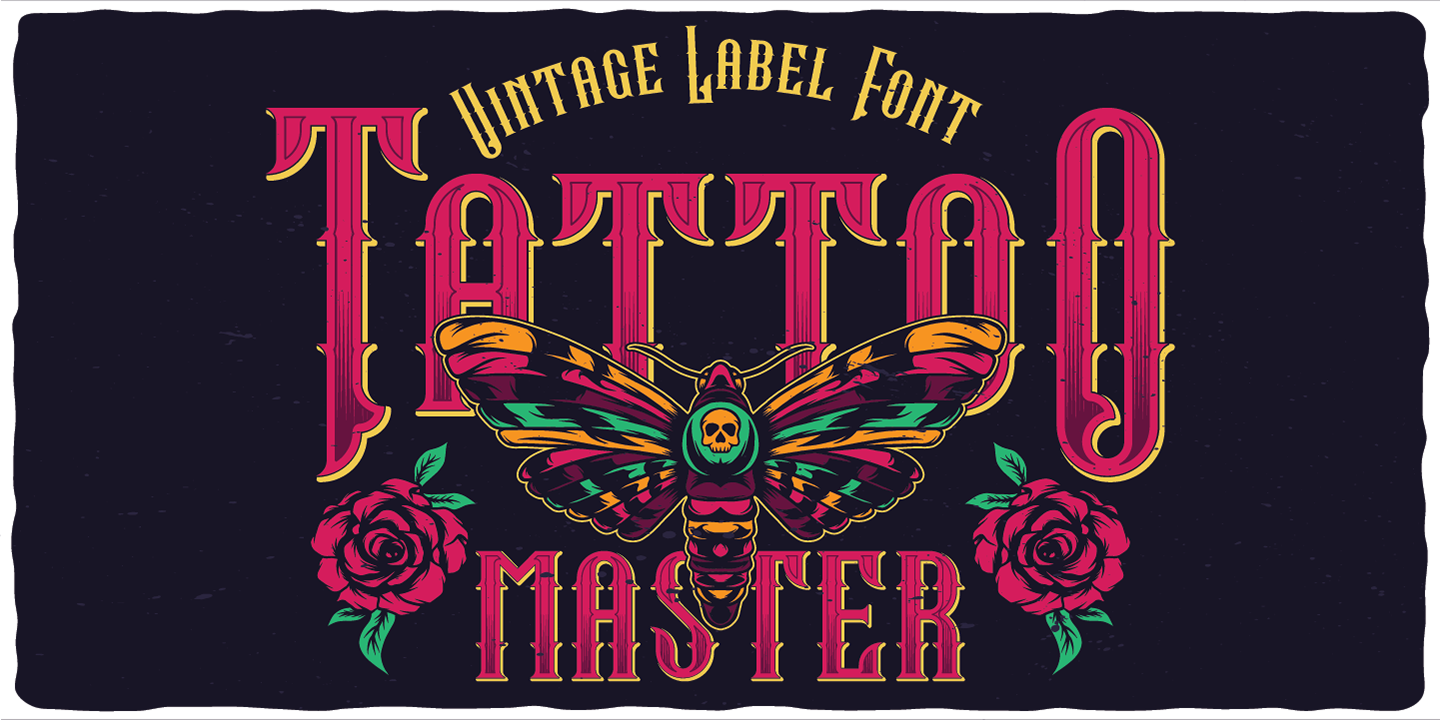
Tattoo Master Font is perfect for tattoo parlor branding, alternative lifestyle marketing, rock band merchandise, motorcycle shop signage, rebel fashion campaigns, edgy bar and club identities, underground music promotions, custom art studios, biker culture materials, and authentic street culture designs. This bold typeface excels in environments where artistic rebellion and authentic underground character are essential for connecting with alternative communities.
What makes Tattoo Master Font exciting is its authentic recreation of traditional tattoo lettering that captures the raw artistic energy and rebellious spirit of ink culture. The font features bold, hand-drawn characteristics with decorative flourishes that mirror the craftsmanship and personal expression found in professional tattoo artistry. This authentic aesthetic makes it ideal for brands seeking to communicate individuality, artistic freedom, and genuine connection to alternative culture and body art traditions.
Tattoo Master Font family includes Regular, Bold, Outline, Shadow, Decorative, Ornamental, Script, and Distressed variants. Each style maintains the font's distinctive tattoo character while offering different levels of artistic intensity and rebellious expression, enabling designers to create authentic ink-inspired compositions that celebrate individual creativity.
Creative professionals appreciate the font's ability to instantly communicate authenticity, rebellion, and artistic craftsmanship. The letterforms' hand-drawn characteristics and decorative elements create powerful emotional connections that standard fonts cannot achieve, making it essential for projects requiring distinctive alternative personality and underground credibility.
When working with Tattoo Master Font, designers can create compelling visual narratives that resonate with tattoo enthusiasts and alternative culture communities. The font's rebellious nature makes it especially effective for brands in body art, alternative fashion, music, and creative services where authentic counter-culture appeal and artistic credibility are crucial for market connection.
For digital applications, Tattoo Master Font maintains its distinctive ink qualities across different platforms while ensuring readability in various contexts. Its optimized spacing preserves the hand-drawn character essential for authentic tattoo-inspired appeal.
Design studios consistently choose Tattoo Master Font for projects requiring genuine alternative appeal and artistic authenticity, where conventional typography cannot capture the desired rebellion and creative freedom that defines tattoo culture and underground artistic communities.